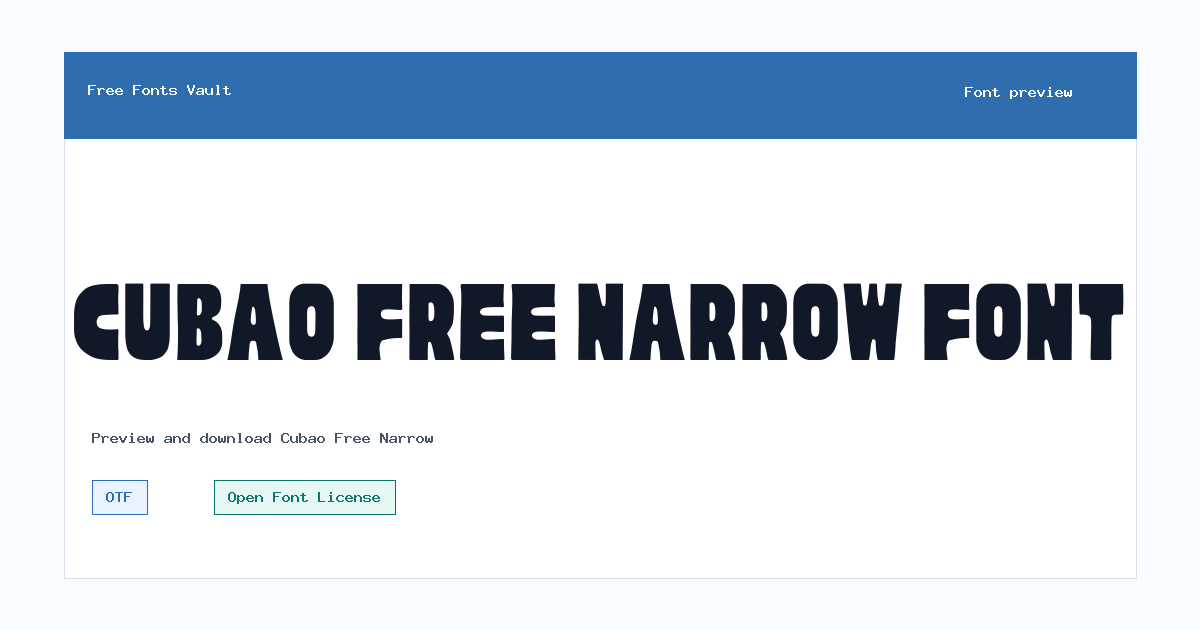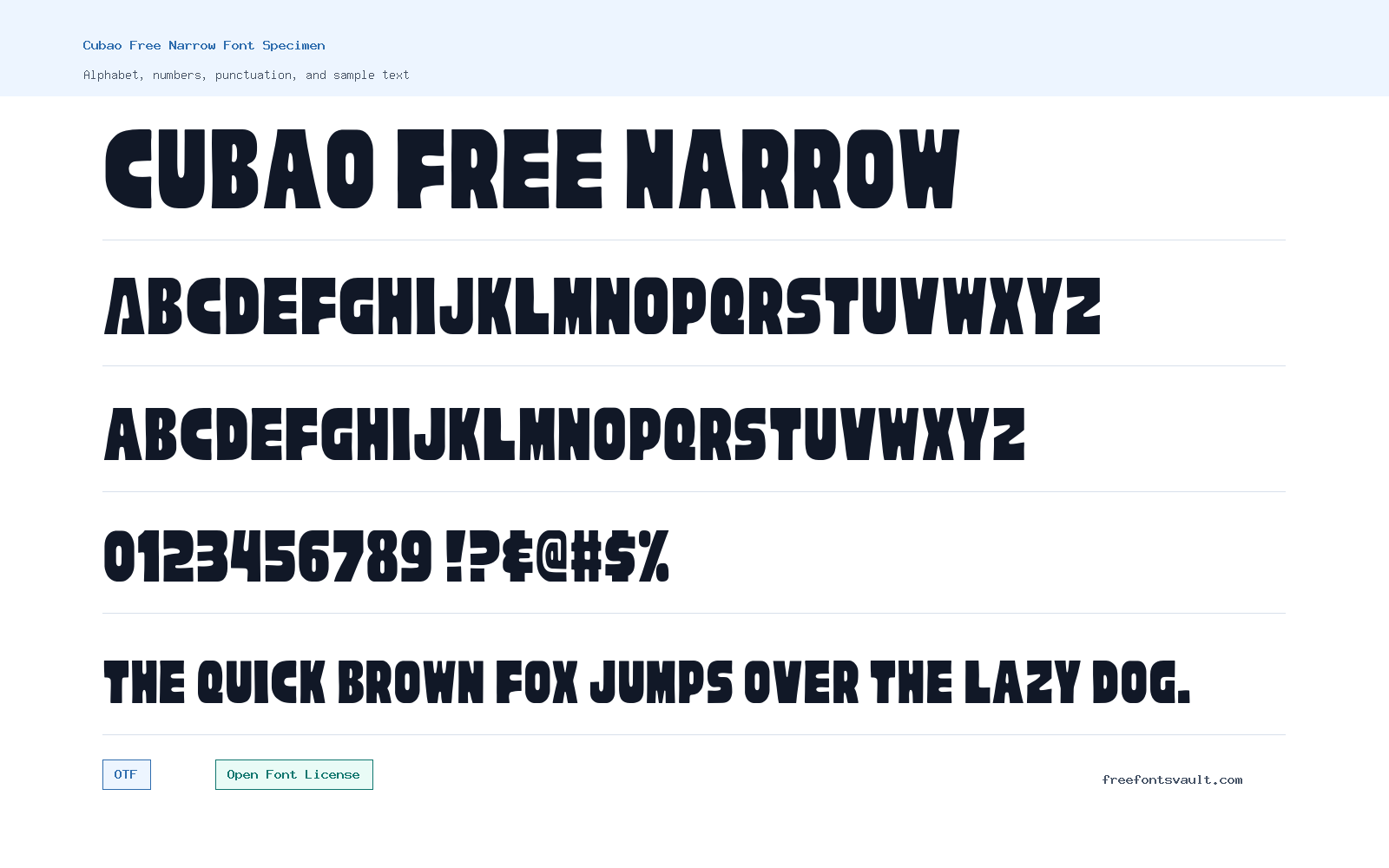
Cubao Free Narrow
- Designer Aaron Amar
Cubao Free Narrow is a compact regular-weight font by Aaron Amar. Its narrow build makes it useful when you need clear short text that fits into tighter spaces.
About Cubao Free Narrow
Cubao Free Narrow comes as a regular OTF font with a normal style and 400 weight. The family name points to a narrow design, so it is a good candidate for headlines, labels, menu text, posters, and other places where a condensed look can save space without making the text feel too heavy.
Cubao Free Narrow is built for compact display work where horizontal space matters. Narrow lettering can make posters, labels, menu boards, vintage-inspired badges, and stacked headlines feel taller and more deliberate without taking over the full width of the design. Use it at medium to large sizes, watch the spacing between repeated narrow letters, and pair it with a simpler text font when the design also needs readable paragraphs.
Narrow display fonts reward careful alignment. Try centered stacks, vertical poster compositions, or tight label systems where every line has a clear width. If a word feels cramped, increase tracking slightly instead of shrinking the whole font. That usually keeps the condensed personality while improving legibility.
- Narrow family style suited to compact display text
- Headlines, poster text, and short title treatments
- Labels, menu items, badges, and space-saving layout text
Cubao Free Narrow is credited to Aaron Amar.
Who designed Cubao Free Narrow?
The font is credited to Aaron Amar.
What should I test before using it in a design?
Preview your actual headline, label, or title text. Because it is a narrow font, check that spacing and readability still work at your final size.